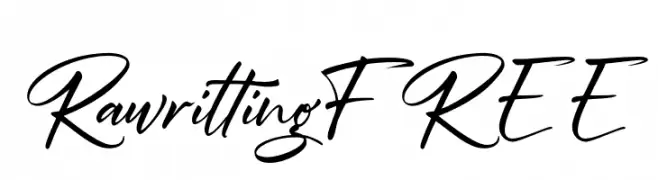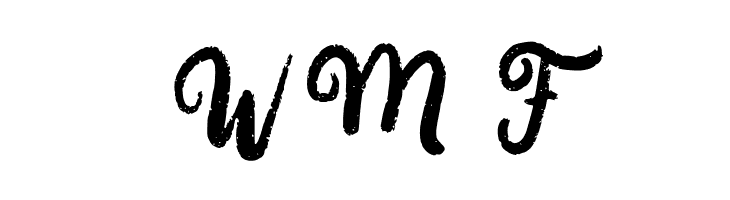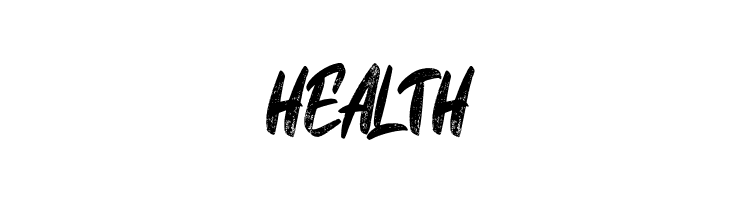
A dynamic and elegant script font with fluid, connected letterforms.
A bold, expressive handwritten font with dynamic strokes and a brush-like texture.
A dynamic brush script font with fluid, expressive strokes.
A bold, expressive script font with dynamic flow and elegant curves.
A bold, expressive script font with high contrast and flowing cursive letterforms.
An elegant script font with flowing, interconnected letterforms and intricate swashes.
An elegant script font with intricate swashes and high contrast, ideal for formal uses.
A bold, hand-painted style font with thick, uneven strokes and a dynamic feel.
A dynamic, expressive handwritten font with fluid and flowing letterforms.
A dynamic script font with flowing, cursive letterforms and elegant swashes.